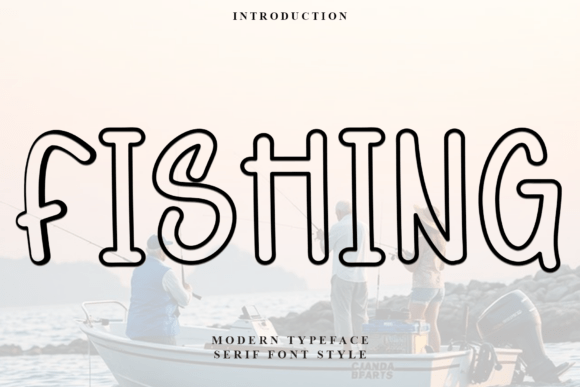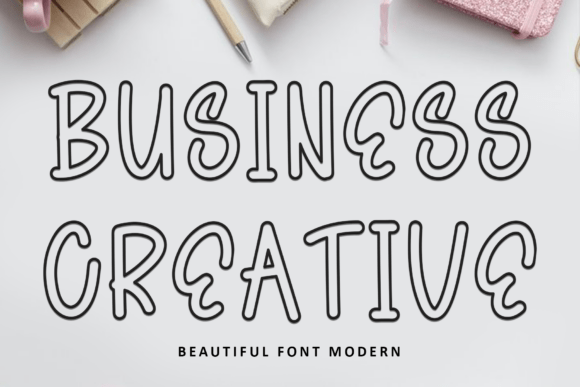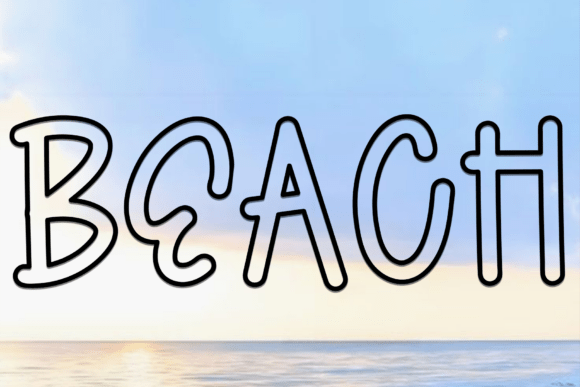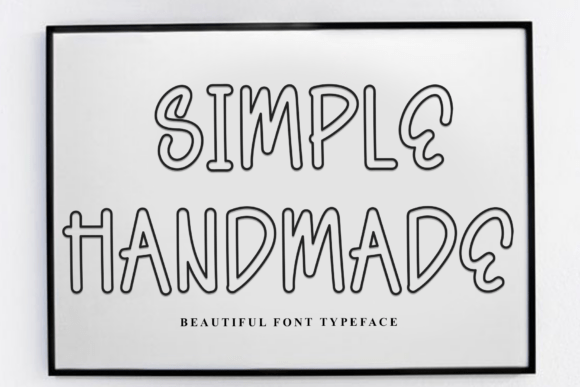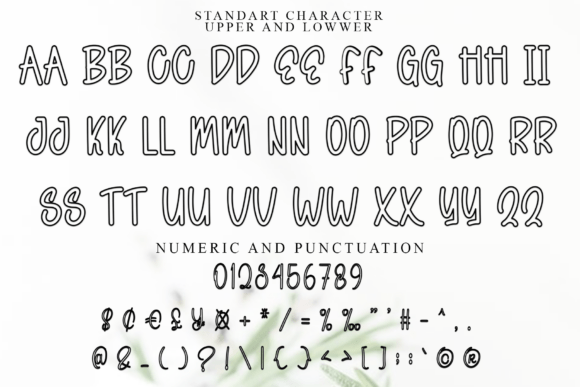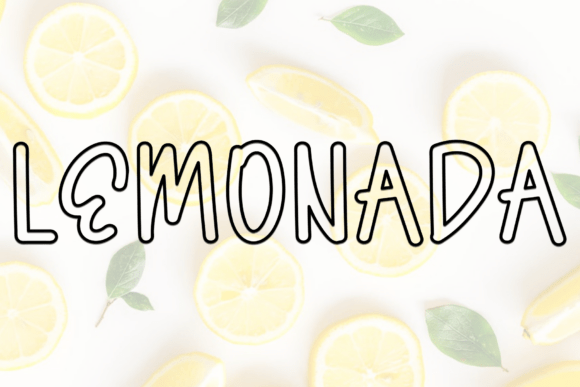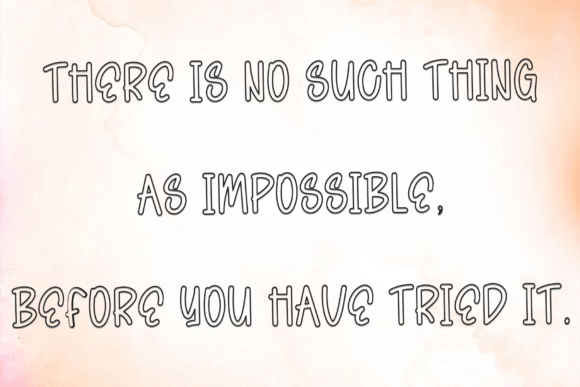
Fishing for Inspiration: Discover the Catch of the Day in Fishing Font
As I sat by the serene lake, watching the sun set behind the trees, I felt an overwhelming sense of calm wash over me. The gentle lapping of the water against the shore was like a soothing melody, and I couldn’t help but feel inspired to create. It’s moments like these that remind me why I love design – the freedom to express myself and bring beauty to the world. And speaking of beauty, have you ever come across a font that makes your heart skip a beat?
That’s where Fishing Font comes in – a stunning, handcrafted font that’s as unique as it is versatile. Designed with a soft, natural touch, this font is perfect for designers looking to add a touch of whimsy to their projects. With its distinctive strokes and varied characters, Fishing Font is an invaluable tool for any creative looking to make their designs stand out.
Fishing Font Key Features
- Unique Character Set: Fishing Font features a set of unique characters and symbols inspired by fishing-related elements, such as fishing rods, nets, and aquatic life.
Fishing Font Review
As a designer, I recently had the chance to try out Fishing Font and here’s my honest take on it.
- Unique Design: The font’s quirky design and aesthetic make it perfect for adding a touch of personality to any design project.
- Legibility: Despite its whimsical nature, the font remains legible and easy to read, even at smaller font sizes.
- Fun and Versatile: I love how the font can be used for a variety of projects, from casual blogs to children’s books and more.
Limitsations ⚠️
- Limited Character Set: The font’s character set is relatively small, which may limit its use in more complex design projects.
- Not Ideal for Body Text: While the font is great for headings and titles, it’s not the most suitable choice for body text due to its playful nature.
Fishing Font is a delightful and unique addition to any designer’s toolkit. While it may have some limitations, its versatility and charm make it a great choice for the right project. I’d definitely recommend it to designers looking to add a touch of whimsy to their designs.
Tips for Getting the Most Out of Fishing Font
Use Fishing Font for creative projects that require a fun, playful vibe. It’s perfect for titles, headings, and body text in designs related to fishing, outdoor activities, or nautical themes.
Fishing Font is commonly used in:
– Fishing and outdoor-themed designs
– Titles and headings for creative projects
– Body text for websites, social media, and marketing materials
– Nautical-themed designs, such as logos and branding materials